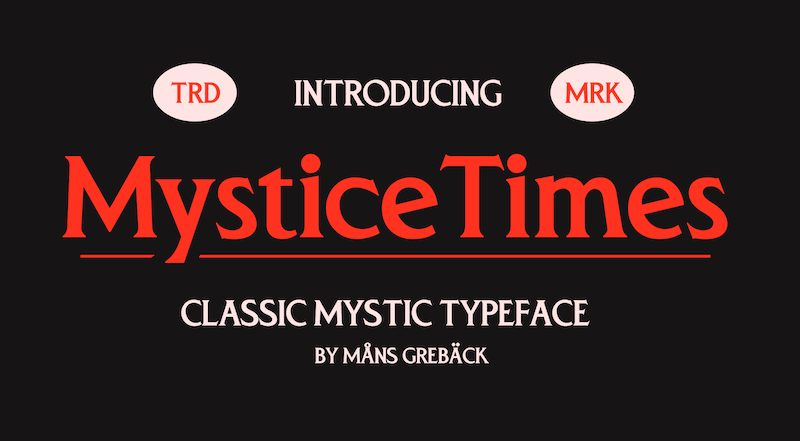
Preview and download Mystice Times Font. Created by Måns Grebäck in Basic Serif styles with Free for personal use license.
NOTE: This font is for PERSONAL USE ONLY! To purchase a commercial license, visit: http://mn.sg/mystice-times Channeling the enchanting ambiance of 80s thriller movies, Mystice Times echoes tales of mystery wrapped in professionalism. Its characters, though rooted in the cinematic charm of yesteryears, are tinged with an unpredictable, slightly eccentric flair. For questions, please visit www.mansgreback.com/faq |